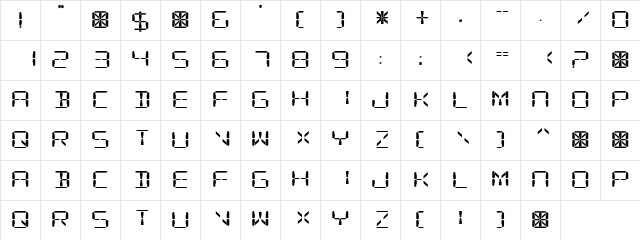
Digital Readout ExpUpright Regular
Design Context for Digital Readout ExpUpright Typeface
Digital Readout ExpUpright channels digital-age aesthetics through its sharp, structured letterforms — ideal for brands that want to signal innovation.
Pro Tip: Use Digital Readout ExpUpright in combination with a neutral sans for body text. Let it define the brand voice in headlines while keeping reading comfortable elsewhere.